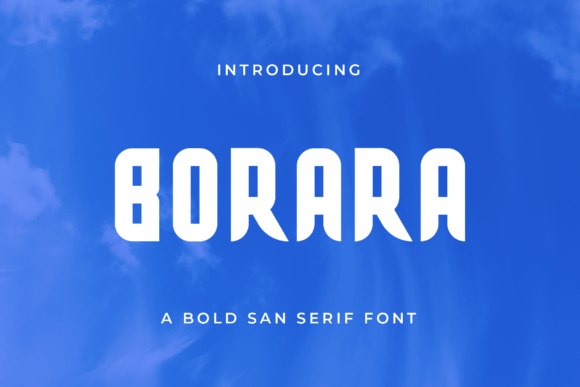
The Designer’s Delight: Exploring the Borara Font
I’ll never forget the time I was working on a branding project for a children’s app, and I was stuck on finding the perfect font. The client wanted something that was both professional and approachable, with a touch of warmth. I scoured through countless font libraries, but nothing seemed to fit the bill. That was until I stumbled upon the Borara font. ✨
Designed to bring warmth and clarity to visual communication, Borara is a soft and modern rounded sans serif font that has become a staple in my design toolkit. With its smooth edges, geometric balance, and contemporary feel, it’s perfect for a wide range of applications, from branding and packaging to mobile apps and tech interfaces.
- ✨ Smooth and rounded edges that give it a friendly and approachable feel
- ✅ Geometric balance that makes it easy to read and visually appealing
- 💡 Contemporary feel that makes it perfect for modern designs
- 🎨 Versatility – it can be used for a wide range of applications, from children’s products to tech interfaces
While Borara is an excellent font, there are a few things to keep in mind: 🤔
- ⚠️ Limited use of uppercase letters – while the font does have uppercase letters, they may not be as stylized as some other fonts
- ⚠️ Some glyphs may not be suitable for small font sizes – as with any font, it’s essential to test it at different sizes to ensure it works well
Borara comes with a range of OpenType features and glyphs that can enhance your designs:
- Stylistic alternates – switch between different font styles to add variety to your design
- Glyphs – access a range of alternative characters and symbols to add visual interest
The Story Behind Borara
Borara was designed with the goal of creating a font that was both modern and approachable. The designer wanted to create a font that would bring warmth and clarity to visual communication, making it perfect for a wide range of applications. 💡
Q: What is Borara font?
A: Borara is a soft and modern rounded sans serif font designed to bring warmth and clarity to visual communication.
Q: What can I use Borara font for?
A: Borara is perfect for branding, packaging, mobile apps, social media, children’s products, and tech interfaces that need to feel both professional and approachable.